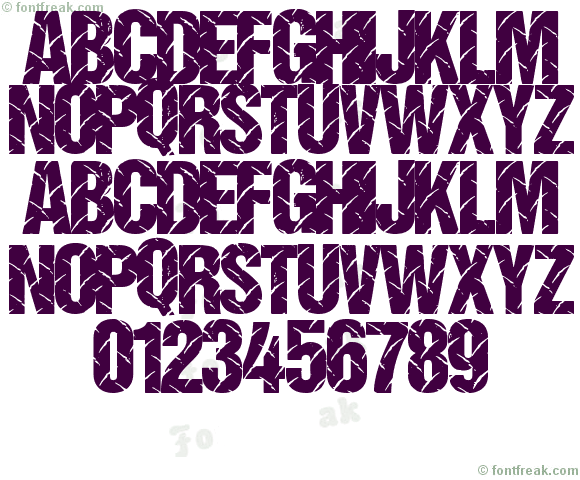
DiamondPlate
The DiamondPlate font by Xerographer Fonts is a striking display typeface that captures attention with its unique visual characteristics. This font showcases a bold, industrial aesthetic, featuring rugged, angular shapes reminiscent of diamond plate metal. The stroke weight is consistent, offering a sturdy appearance, while its high contrast and decorative elements create a sense of texture and depth. The spacing is well-balanced, allowing each letterform to stand out without sacrificing legibility, making it ideal for various design applications.
DiamondPlate is particularly well-suited for use cases that require a strong visual impact. It shines in settings such as promotional materials for automotive events, edgy product packaging, and bold signage. Additionally, this font can elevate the design of music album covers and apparel graphics, where a sense of strength and character is essential. Graphic designers and small business owners seeking to create a memorable brand identity will find this font to be an excellent choice. Content creators looking to make their projects more dynamic will also benefit from the distinctive flair that DiamondPlate brings.
What truly sets the DiamondPlate font apart is its ability to convey a sense of toughness and modernity, making it perfect for projects that aim to resonate with audiences seeking a bold statement. The combination of its rugged style and versatility allows it to adapt to various themes, from industrial and urban to contemporary and artistic. For those interested in enhancing their design toolkit, the DiamondPlate font free download offers an opportunity to incorporate this powerful typeface into any project, ensuring that your work leaves a lasting impression.